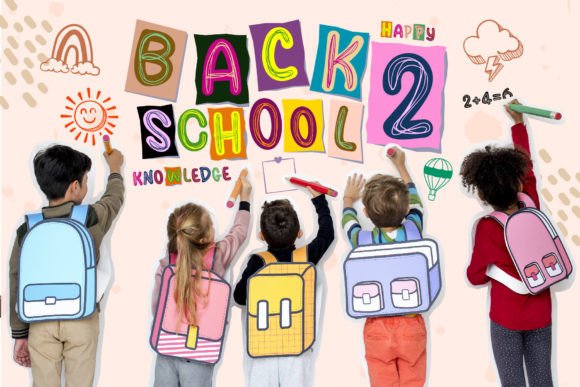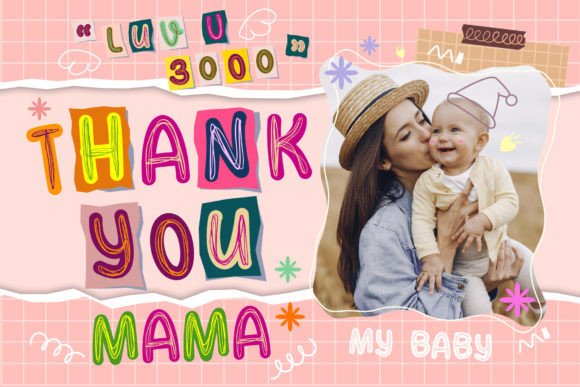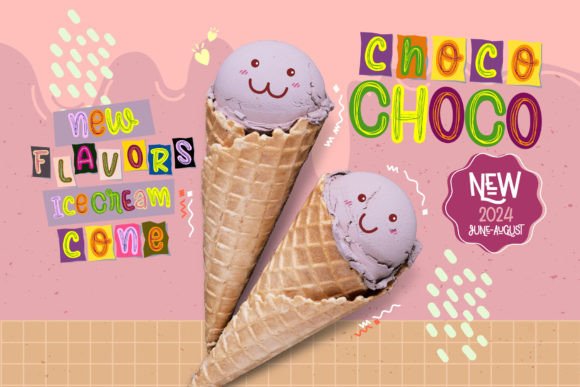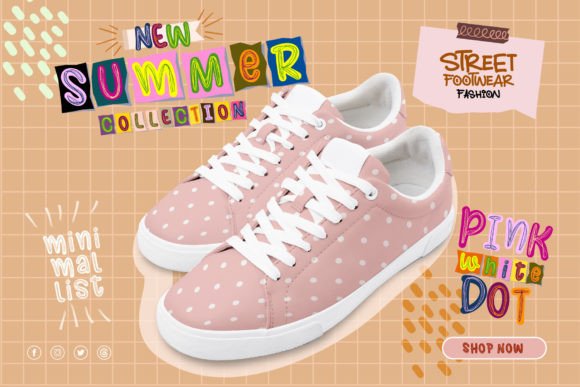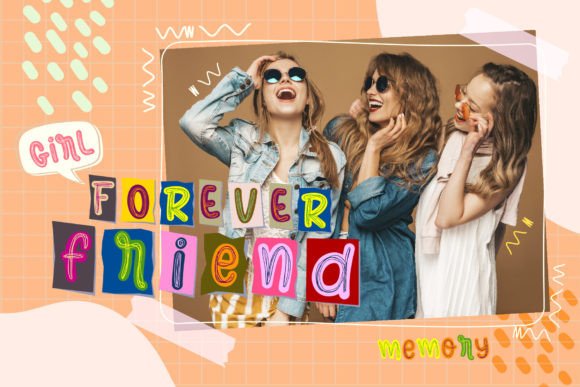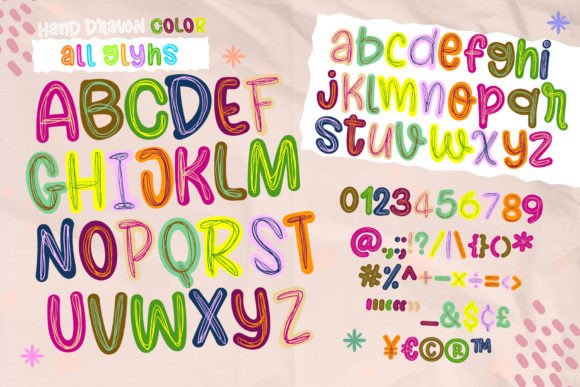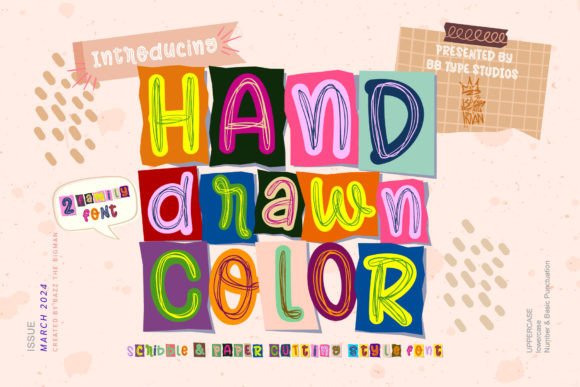
Introducing Hand Drawn Color Font: Add a Playful Touch to Your Designs
Are you looking for a font that can add a dash of playfulness and whimsy to your designs? Look no further than Hand Drawn Color Font, a 2-color font family that’s perfect for designs aimed at children or anyone who wants to add a touch of personality to their project.
What is Hand Drawn Color Font?
Hand Drawn Color Font is a unique and playful typeface that features a hand-drawn, scribbled design. The font is a 2-color family, which means that it comes with two colors that can be used together to create a fun and playful effect. The hand-drawn design of the font gives it a personal and informal feel, making it perfect for designs that need to be friendly and approachable.
Characteristics of Hand Drawn Color Font
So, what makes Hand Drawn Color Font so special? Here are a few of its key characteristics:
• Hand-drawn design: The font features a unique, hand-drawn design that’s full of personality and character.
• 2-color family: The font comes with two colors that can be used together to create a fun and playful effect.
• Playful and whimsical: The font has a playful and whimsical feel that’s perfect for designs aimed at children or anyone who wants to add a touch of fun to their project.
• Versatile: The font is versatile and can be used for a wide range of designs, from book covers to posters, invitations, and more.
Use Cases for Hand Drawn Color Font
So, what can you use Hand Drawn Color Font for? The possibilities are endless, but here are a few ideas to get you started:
• Book covers: The font is perfect for book covers, especially those aimed at children. It can add a playful and eye-catching touch to your design.
• Posters: The font is great for posters, whether you’re creating a poster for a children’s event or a promotional poster for a product.
• Invitations: The font is perfect for invitations, especially those for children’s parties or events.
• Social media graphics: The font can be used to create fun and playful social media graphics that are sure to grab attention.
Benefits of Using Hand Drawn Color Font
So, why should you use Hand Drawn Color Font for your designs? Here are a few benefits:
• Adds a playful touch: The font can add a playful and whimsical touch to your designs, making them more engaging and eye-catching.
• Perfect for children’s designs: The font is perfect for designs aimed at children, as it’s fun, playful, and engaging.
• Versatile: The font is versatile and can be used for a wide range of designs, from book covers to posters, invitations, and more.
Tips for Using Hand Drawn Color Font
Here are a few tips for using Hand Drawn Color Font:
• Use it for headlines: The font is perfect for headlines, as it’s bold and eye-catching.
• Experiment with colors: The font comes with two colors, so experiment with different combinations to find the one that works best for your design.
• Pair it with other fonts: The font can be paired with other fonts to create a unique and interesting effect.
Font Name Hand Drawn Color Font
Author BB Type Studios
Hand Drawn Color Font is a unique and playful typeface that’s perfect for designs aimed at children or anyone who wants to add a touch of personality to their project. With its hand-drawn design, 2-color family, and playful feel, it’s the perfect choice for a wide range of designs, from book covers to posters, invitations, and more. So why not give it a try and see how it can add a playful touch to your designs?